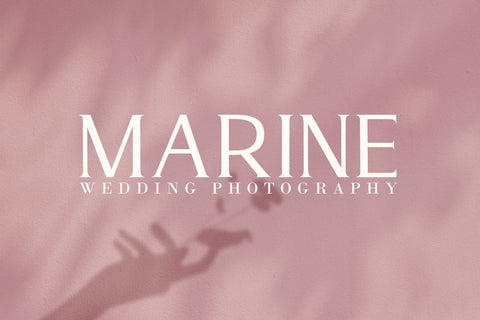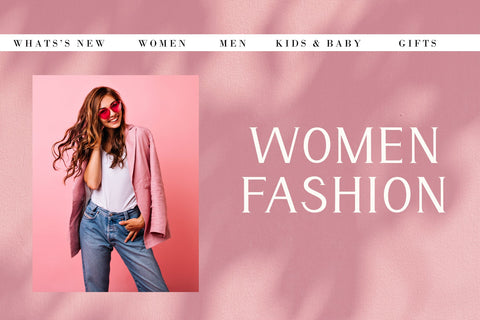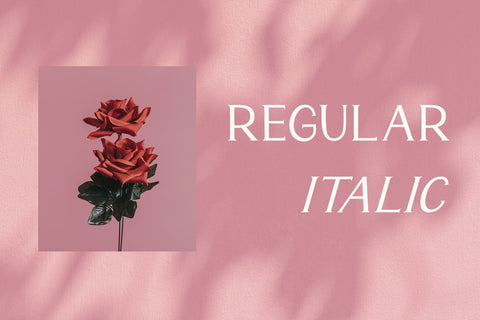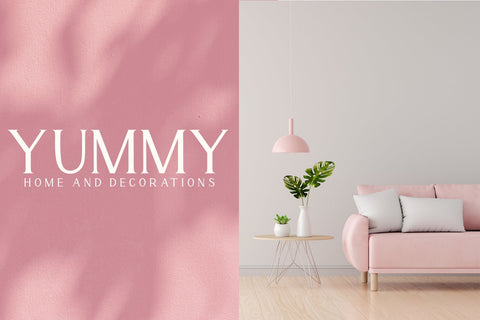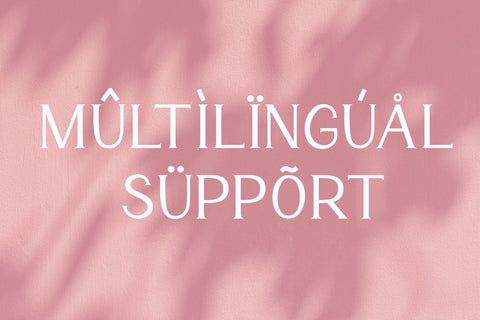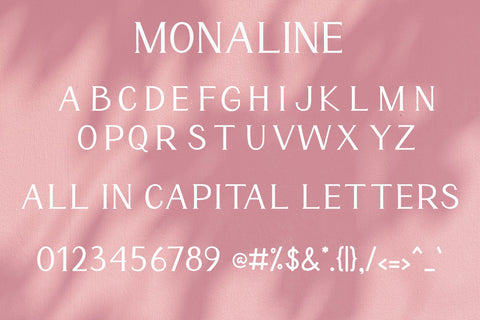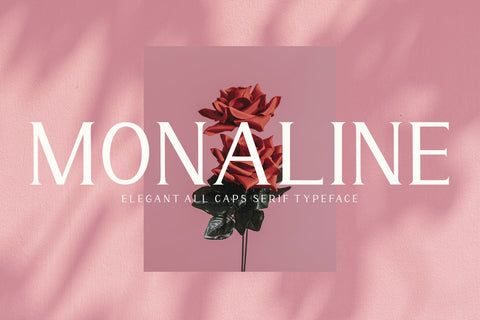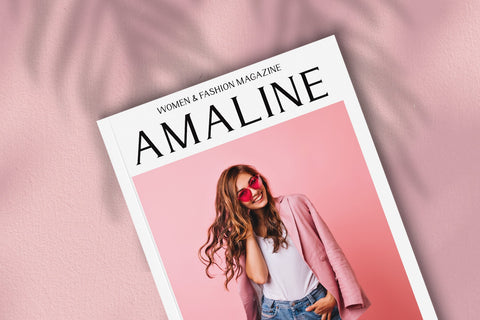
Monaline - Modern Serif Font
Monaline is an elegant and modern serif font. It is ideal for logos, business branding, writing web designs, business cards, or pretty much anything else that requires a unique touch.
• Support multilingual; ä ö ü Ä Ö Ü ß ¿ ¡